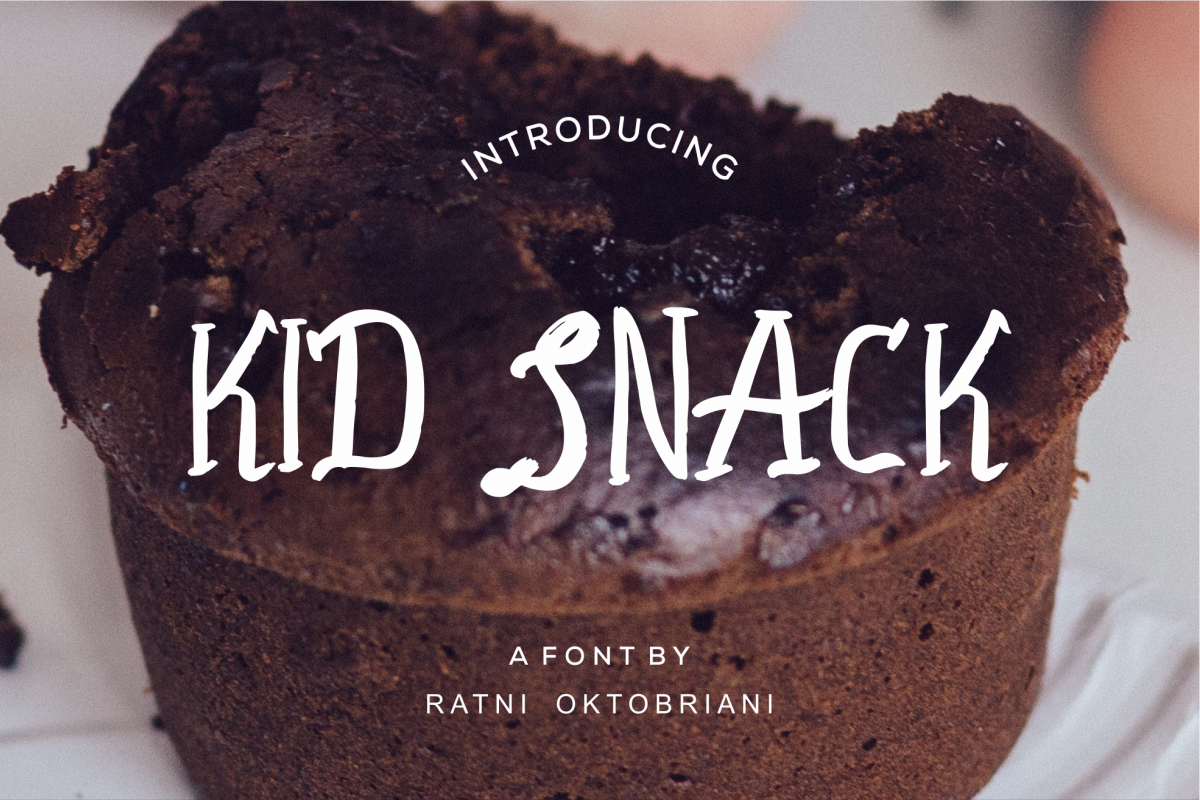
Kid Snack - A Playfull Font
Kid Snack - A Playfull Font made by a Ratni Okt. It fun and playfull. Good for any business that wants to look fun!
By Ratni Oktobriani